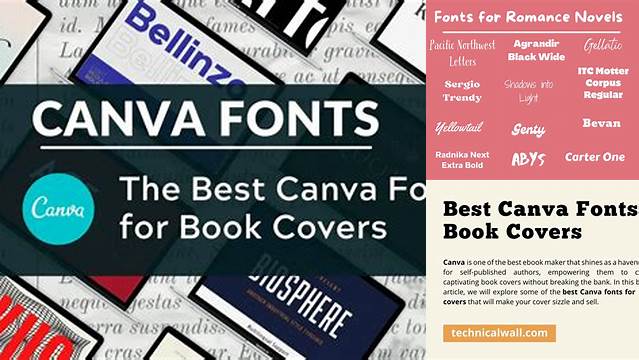
Best Canva Fonts For Book Covers: Make Your Book Stand Out
Choosing the right font for your book cover is super important. It's like picking the perfect outfit for a first date – you want to make a great impression! With Canva, you've got tons of options, but let's break down the best ones to make your book cover pop.
Why Font Choice Matters for Book Covers
Font choice matters a lot for book covers because it’s the first visual cue that potential readers have about your book. Think of fonts as the voice of your book – they convey tone, genre, and the overall feel of your story. A thriller might use a bold, sharp font to create suspense, while a romance novel could opt for something elegant and flowing. The right font can grab attention, communicate the book's essence, and ultimately entice readers to pick it up.
When you're designing a book cover, the font is a crucial element that works hand-in-hand with the imagery and colors. It's not just about readability; it's about creating a cohesive and visually appealing design. A well-chosen font can make your book look professional and credible, signaling to readers that your work is worth their time and money. Conversely, a poorly chosen font can make your book look amateurish, even if the content is excellent. Therefore, spending time to select the perfect font is an investment in your book's success. It’s about understanding the psychological impact of different fonts and how they align with your target audience. For instance, a historical fiction novel might benefit from a serif font that evokes a sense of tradition and history, while a science fiction book might use a sans-serif font that feels modern and futuristic. The key is to ensure that the font supports and enhances the overall message and theme of your book.
Moreover, the font you choose affects how your book is perceived in the market. In a sea of books, your cover needs to stand out, and the font plays a significant role in that. A unique and well-executed font choice can differentiate your book from others in its genre, making it more memorable and recognizable. It’s also important to consider how the font looks in different sizes and formats, from the full cover design to the thumbnail image on online stores. Consistency in font usage across your book cover and promotional materials helps to build brand recognition and reinforces the overall message of your book. In summary, font choice is not just a design element; it's a strategic decision that can significantly impact your book's visibility, appeal, and ultimately, its success. So, take the time to explore different options and choose a font that truly represents your book and resonates with your target audience.
Top Canva Fonts for Different Genres
Different genres call for different vibes, right? Here’s a breakdown to get you started.
For Thrillers and Mysteries
Thrillers and mysteries need fonts that scream suspense. Think sharp, bold, and maybe even a little edgy. Avenir Next is a solid choice – it’s clean but has a modern feel that works well for thrillers. Impact is another great option if you want something super bold and attention-grabbing. It’s classic for a reason! Anton is also worth considering; its strong, condensed letters create a sense of urgency and tension, perfect for hooking readers right away.
When selecting a font for a thriller or mystery novel, consider how it will look both in print and online. The font should be legible even at smaller sizes, especially for thumbnail images on e-commerce sites. Experiment with different font weights and styles to find the perfect balance between readability and visual impact. For instance, you might use a heavier weight for the title to make it stand out, and a lighter weight for the author's name or any taglines. Additionally, think about the color of the font and how it contrasts with the background. A dark font on a light background is generally easier to read, but a reverse color scheme can also be effective if done well. The goal is to create a cover that is both visually striking and easy to read at a glance. Moreover, consider the overall design of the cover and how the font integrates with the imagery. A well-chosen font should complement the visuals and enhance the overall message of the book. For example, if your cover features a dark and ominous image, a sharp, sans-serif font can reinforce the feeling of suspense and unease. On the other hand, if your cover is more minimalist, a bold, geometric font can add a touch of modernity and intrigue. Ultimately, the best font for your thriller or mystery novel is one that captures the essence of the story and entices readers to delve into the suspenseful world you've created. So, take the time to explore different options and choose a font that truly reflects the tone and themes of your book.
For Romance Novels
Romance novels benefit from fonts that evoke feelings of love and elegance. Think flowing scripts or delicate serifs. Playfair Display is a beautiful serif font that adds a touch of sophistication. Great Vibes is a classic script font that’s perfect for creating a romantic and inviting cover. Mrs. Eaves is another excellent choice, offering a blend of elegance and readability that works well for romance titles. These fonts help set the mood and draw readers into the love story.
When selecting a font for a romance novel, it's important to consider the specific tone and style of your story. Is it a sweet and innocent romance, or a more passionate and sensual one? The font should reflect the overall feeling of the book. For example, a light and airy script font might be perfect for a lighthearted romance, while a more dramatic and elegant serif font could be better suited for a more intense and emotional story. Pay attention to the details of the font, such as the curves, serifs, and overall shape of the letters. These elements can convey different emotions and create different impressions. Also, consider how the font will look in combination with the other elements of the cover design, such as the colors, images, and layout. The font should complement these elements and create a cohesive and visually appealing design. It's also important to ensure that the font is legible and easy to read, even at smaller sizes. Readers should be able to quickly and easily identify the title and author's name. Experiment with different font sizes and weights to find the perfect balance between readability and visual impact. Ultimately, the best font for your romance novel is one that captures the heart of the story and entices readers to fall in love with the characters and their journey. So, take your time, explore different options, and choose a font that truly reflects the essence of your romance novel.
For Sci-Fi and Fantasy
Sci-Fi and fantasy books need fonts that suggest futuristic or fantastical worlds. Think clean, modern sans-serifs or unique, stylized fonts. Montserrat is a versatile sans-serif that looks great in a variety of sci-fi settings. Bebas Neue is another solid choice for a modern, streamlined look. For something with a bit more flair, try Rajdhani – its unique letterforms give it a futuristic edge. These fonts can help transport readers to another world.
When selecting a font for a sci-fi or fantasy book cover, consider the specific tone and atmosphere of your story. Is it a gritty, dystopian world, or a magical, enchanting realm? The font should reflect the overall feeling of the book. For example, a clean, futuristic sans-serif font might be perfect for a hard sci-fi novel, while a more ornate and stylized font could be better suited for a high fantasy epic. Think about the technological level of the world you're creating. A futuristic font might not be appropriate for a story set in a medieval fantasy setting, and vice versa. Also, consider the cultural influences in your world. Are there specific design elements or motifs that you can incorporate into the font choice? Pay attention to the legibility of the font, especially if you're using a more stylized or unusual typeface. Readers should be able to easily read the title and author's name, even at smaller sizes. Experiment with different font sizes, weights, and colors to find the perfect balance between visual appeal and readability. Ultimately, the best font for your sci-fi or fantasy book cover is one that captures the essence of your world and draws readers into the story. So, take your time, explore different options, and choose a font that truly reflects the unique atmosphere of your book.
Tips for Combining Fonts on Your Book Cover
Using more than one font can add depth, but it’s easy to overdo it. Here’s how to make it work:
- Contrast is Key: Pair a serif with a sans-serif to create visual interest. For example, use Playfair Display for the title and Montserrat for the author's name.
- Limit Your Choices: Stick to two fonts max. Any more and it can look cluttered.
- Hierarchy Matters: Use a bolder font for the title and a simpler one for the subtitle or author’s name to guide the reader’s eye.
When combining fonts, it’s essential to ensure they complement each other and create a cohesive design. Avoid choosing fonts that are too similar, as this can make the cover look unintentional. Instead, look for fonts with distinct characteristics that create a visual contrast. Consider the overall style of your book and choose fonts that align with its genre and themes. For example, if you're designing a historical fiction cover, you might pair a traditional serif font with a more modern sans-serif font to create a sense of timelessness. Pay attention to the spacing between the letters and lines, as this can significantly impact the readability and overall appearance of the text. Adjust the kerning and leading to create a balanced and harmonious look. Experiment with different font sizes and weights to create a visual hierarchy. The title should be the most prominent element on the cover, so use a larger and bolder font to make it stand out. The author's name and subtitle can be smaller and less prominent, but they should still be easy to read. Also, consider the colors of the fonts and how they interact with the background and other design elements. Choose colors that complement each other and create a visually appealing contrast. Remember, the goal is to create a cover that is both eye-catching and easy to read, so take your time to experiment with different font combinations and find the perfect balance. Ultimately, the best font combination is one that enhances the overall message of your book and entices readers to pick it up.
Examples of Great Book Covers Using Canva Fonts
Need some inspo? Check out these examples:
- Thriller: A cover using Anton for the title in bold red letters against a dark background. The author’s name is in a simple, clean sans-serif like Avenir Next.
- Romance: Playfair Display for the title in a soft, elegant script, with the author's name in a smaller, understated serif like Lora.
- Sci-Fi: Montserrat for the title in a futuristic blue, paired with Bebas Neue for the subtitle, creating a sleek and modern feel.
Looking at successful book covers can provide valuable insights into effective font choices and design principles. Analyze the covers in your genre to identify common trends and stylistic elements. Pay attention to the fonts that are used, as well as the overall layout, color scheme, and imagery. Consider how these elements work together to create a cohesive and visually appealing design. Also, think about the target audience for the book and how the cover design appeals to their preferences. Are there specific design elements that are particularly popular or effective in your genre? Use these observations to inform your own design choices and create a cover that is both unique and appealing. Don't be afraid to experiment with different font combinations and design elements, but always keep the target audience and overall message of the book in mind. Remember, the goal is to create a cover that captures the essence of your story and entices readers to pick it up. By studying successful book covers and incorporating best practices into your own designs, you can create a cover that stands out from the crowd and helps your book achieve its full potential. So, take the time to research and analyze different covers, and use this knowledge to inform your own creative process.
Choosing the right font can make or break your book cover. With Canva, you have plenty of options at your fingertips. Experiment, have fun, and create a cover that truly represents your book! Good luck, you got this!